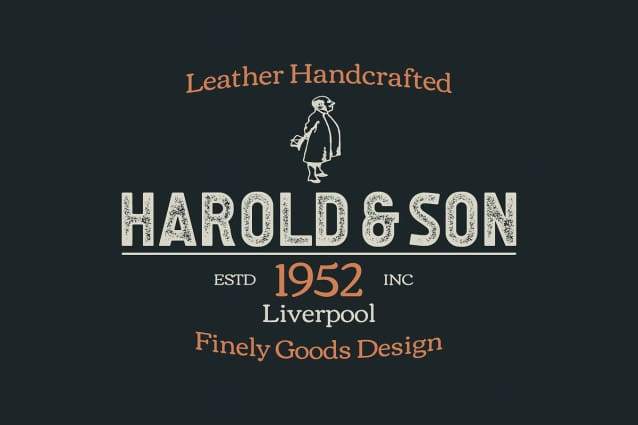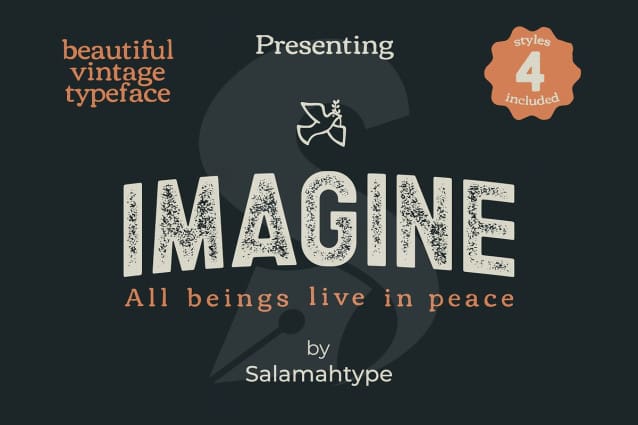
Imagine Sans Font
Imagine Sans Font is a sans serif based typeface with 4 styles included (clean, rough, stamp, rough stamp). ImagineSans is perfect for branding projects, logos, labels, logotypes and more.